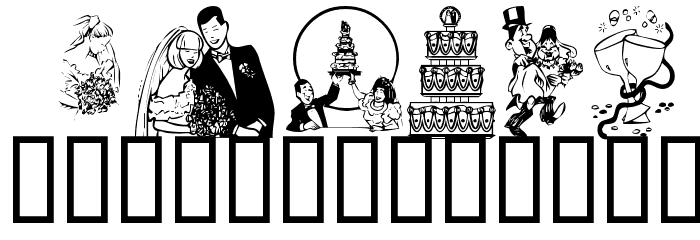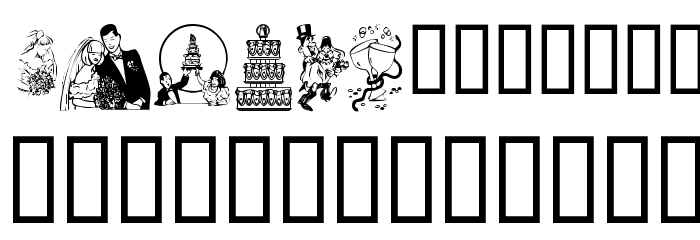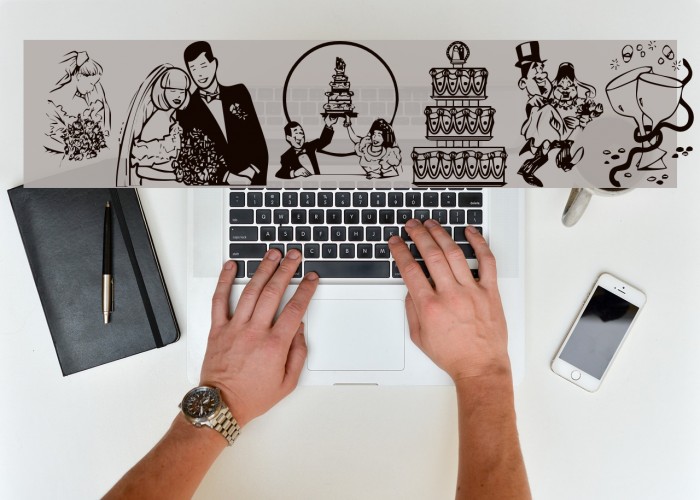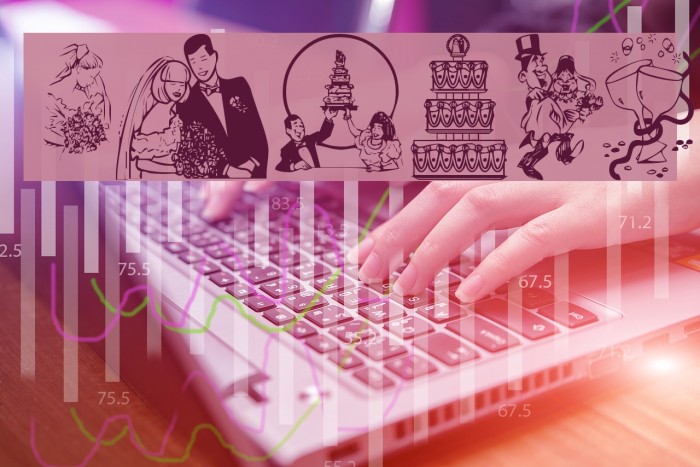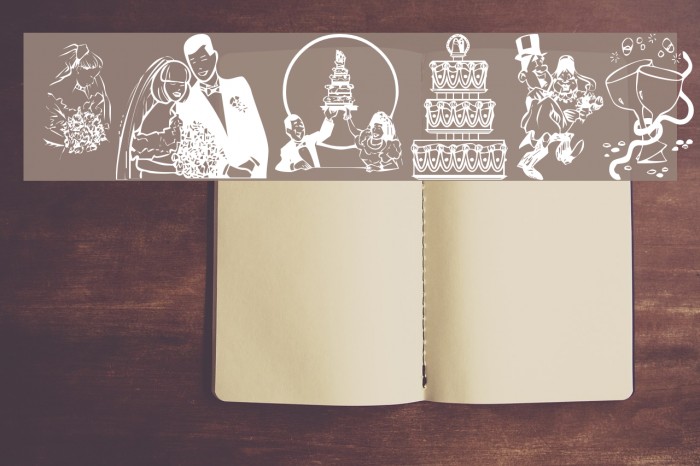
KR Wedding Font
This decorative font features whimsical wedding-themed illustrations in place of traditional alphanumeric characters. Each character is represented by a unique image related to weddings, such as couples, cakes, and celebratory scenes. The style is playful and cartoonish, making it ideal for projects that require a lighthearted and festive touch. The font does not contain standard letters or numbers, focusing entirely on themed graphics.
A decorative font with wedding-themed illustrations instead of letters.
- Proposed Projects: Ideal for wedding invitations, greeting cards, scrapbooking, and event decorations.
- Use Case: Logos, Invitations, Decorative elements